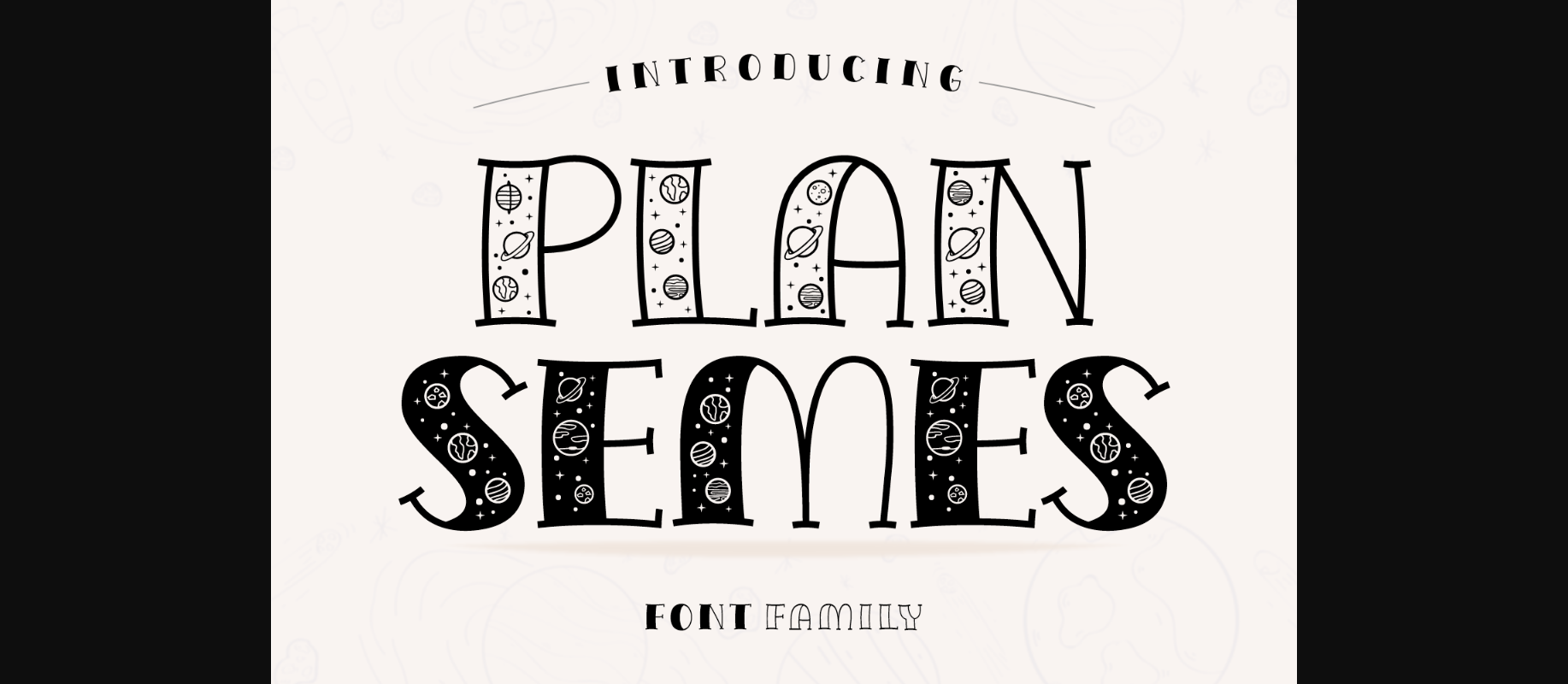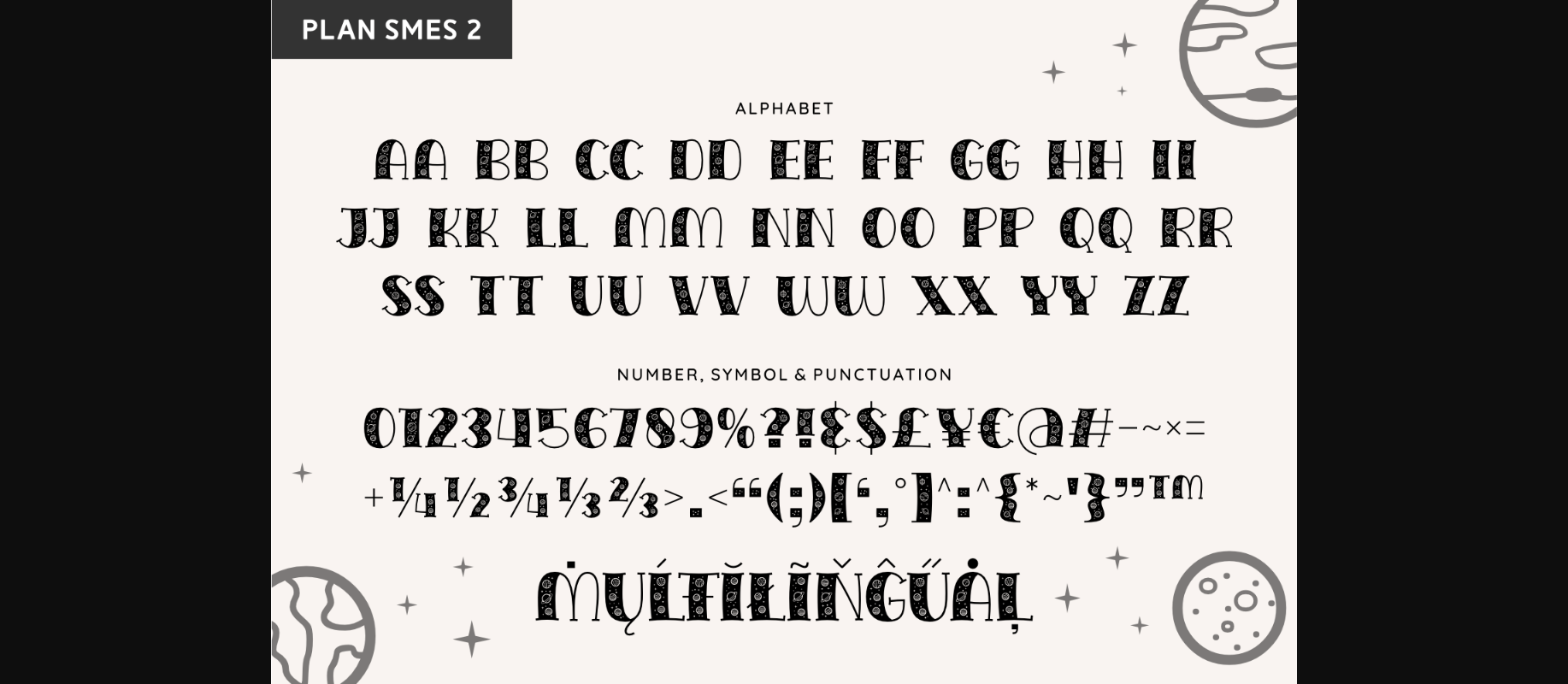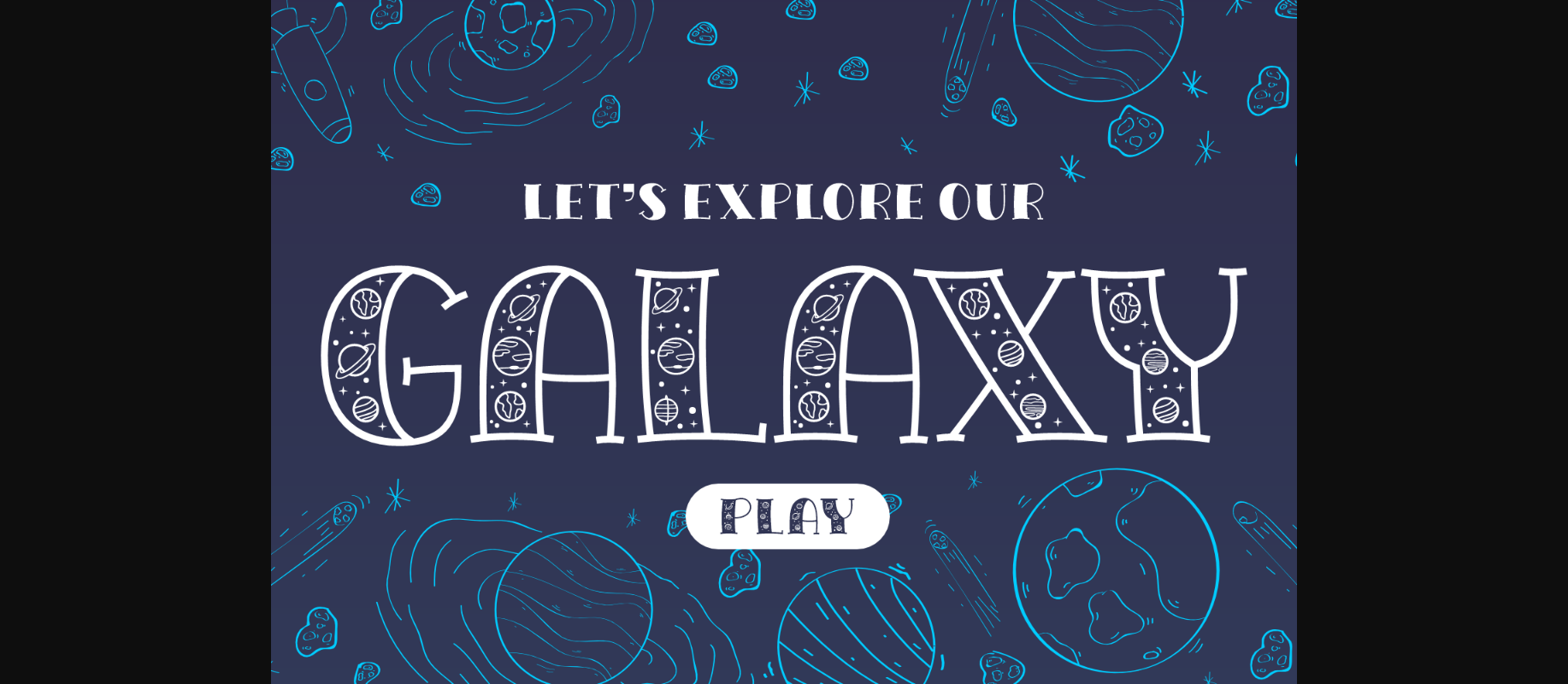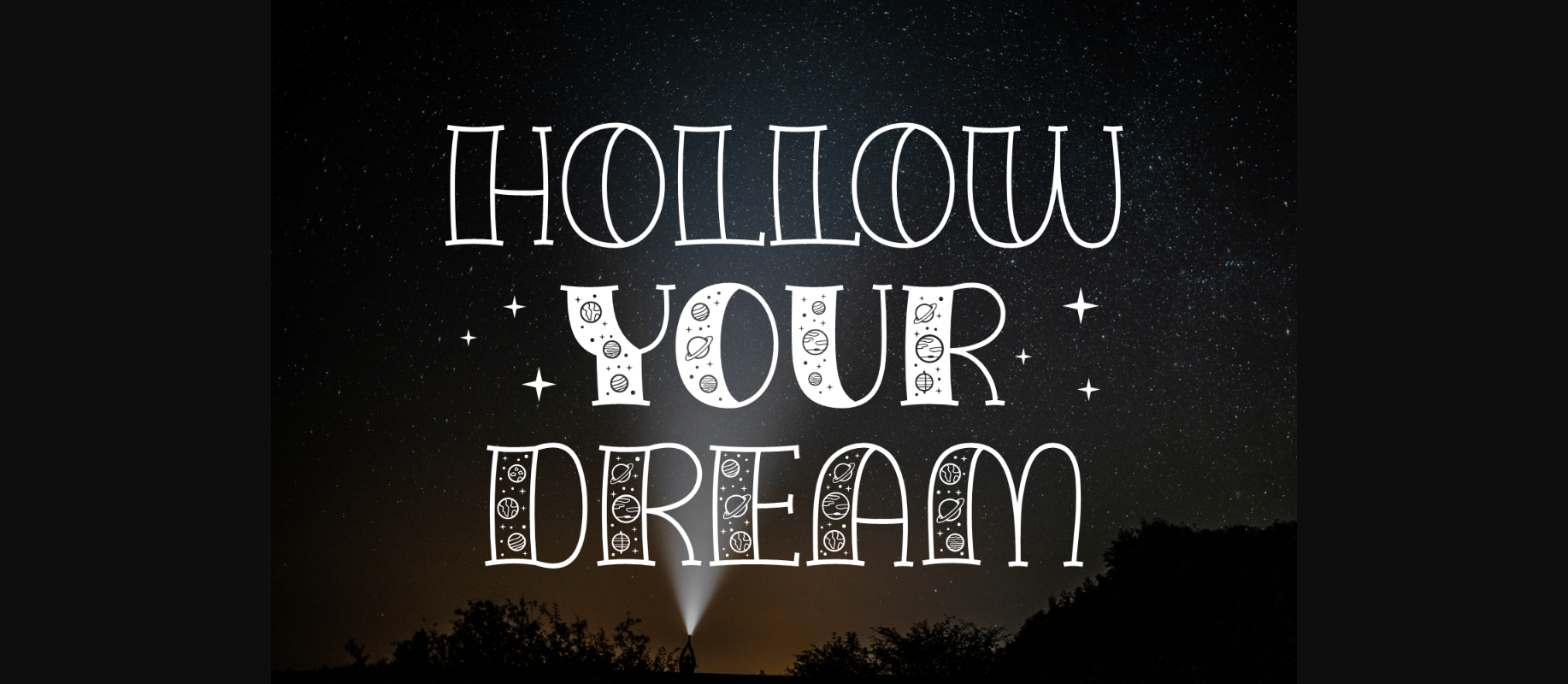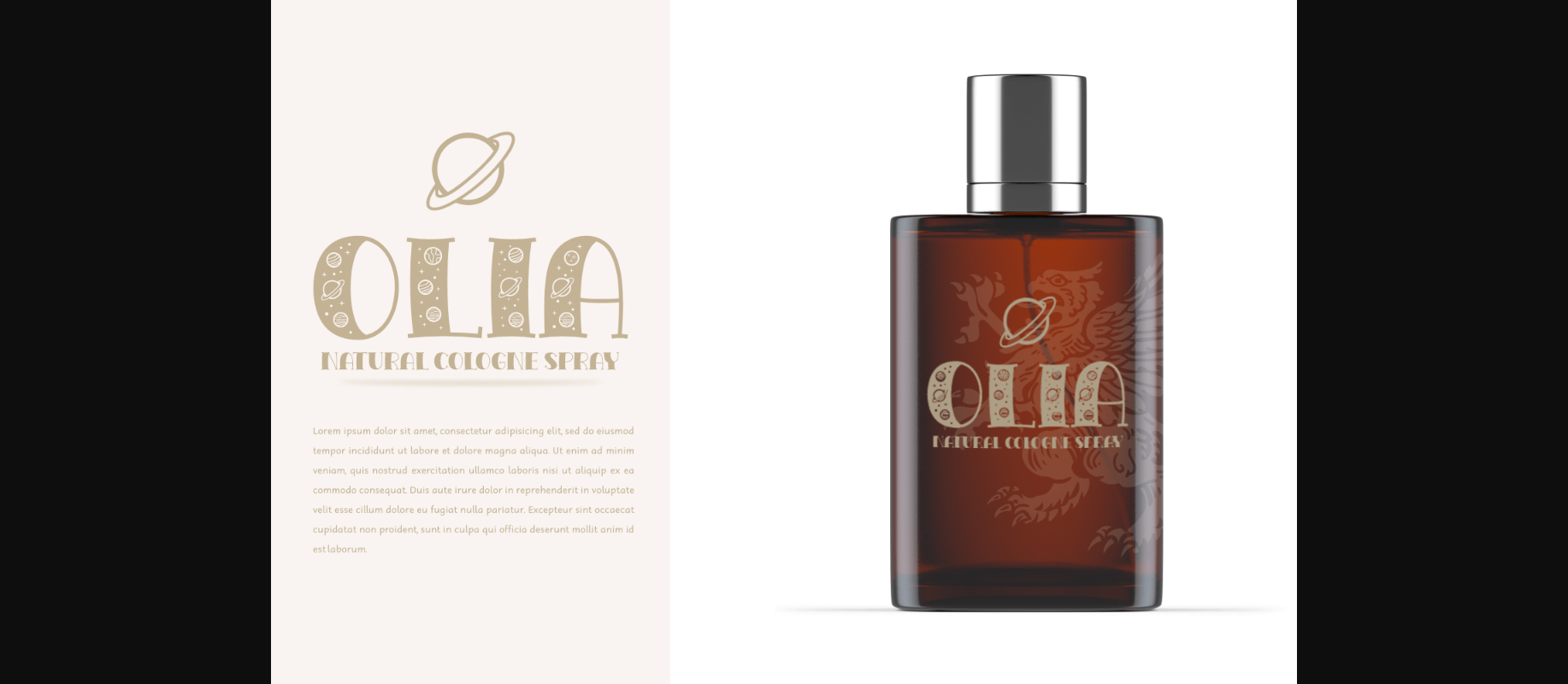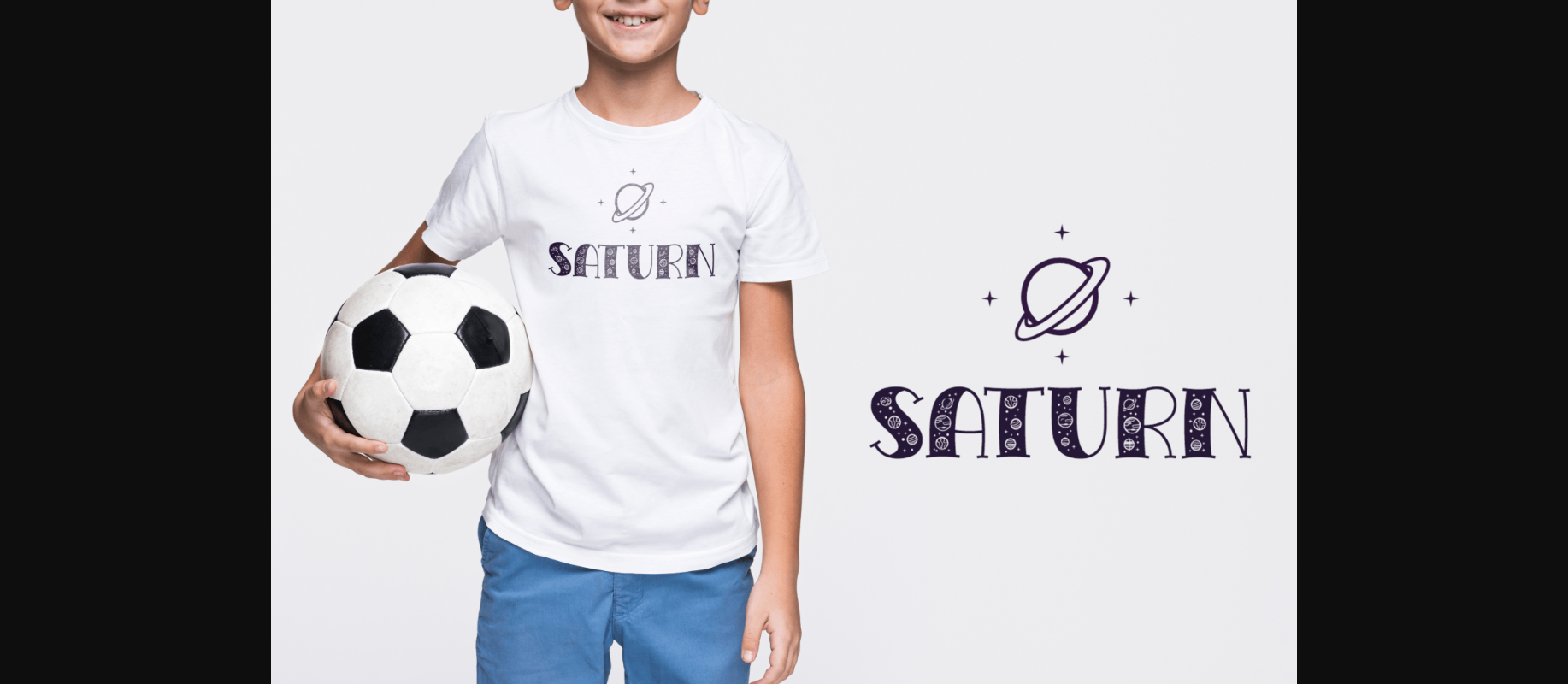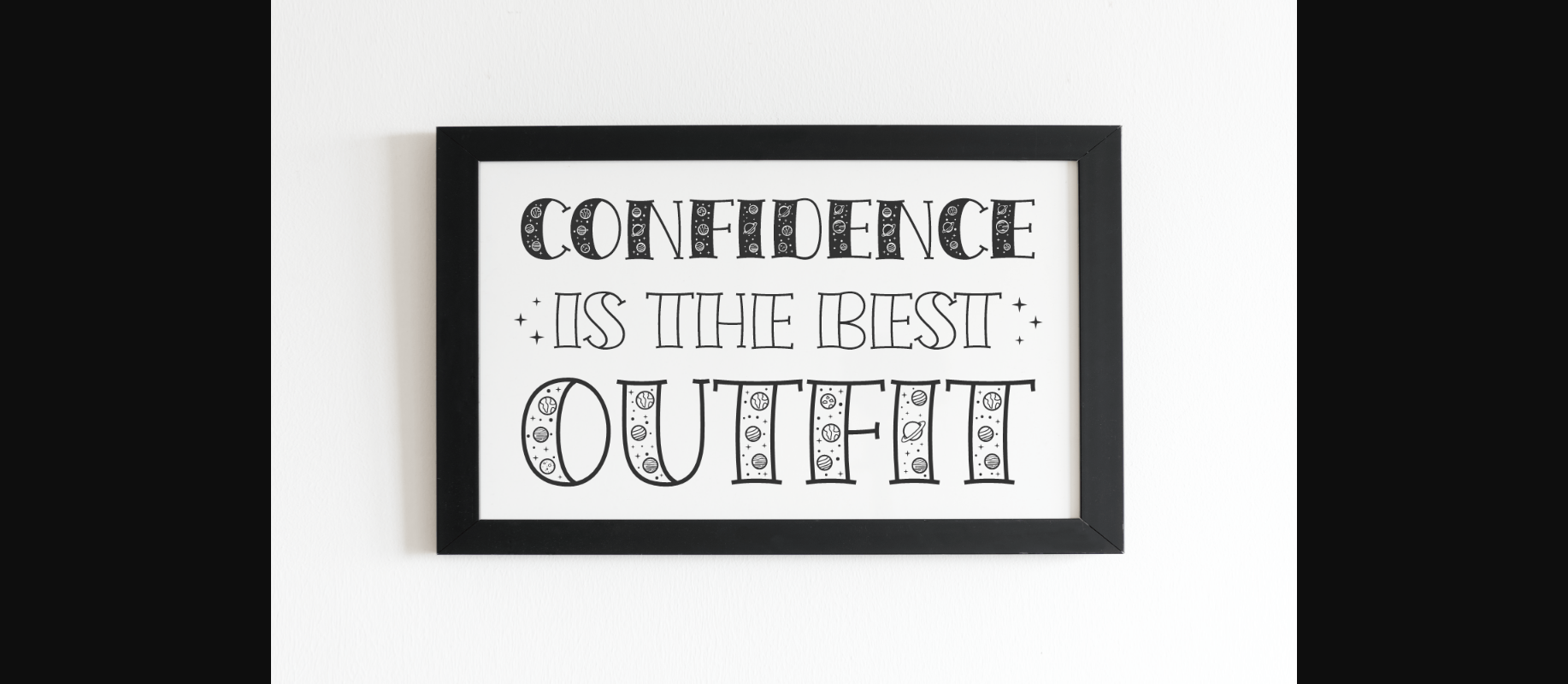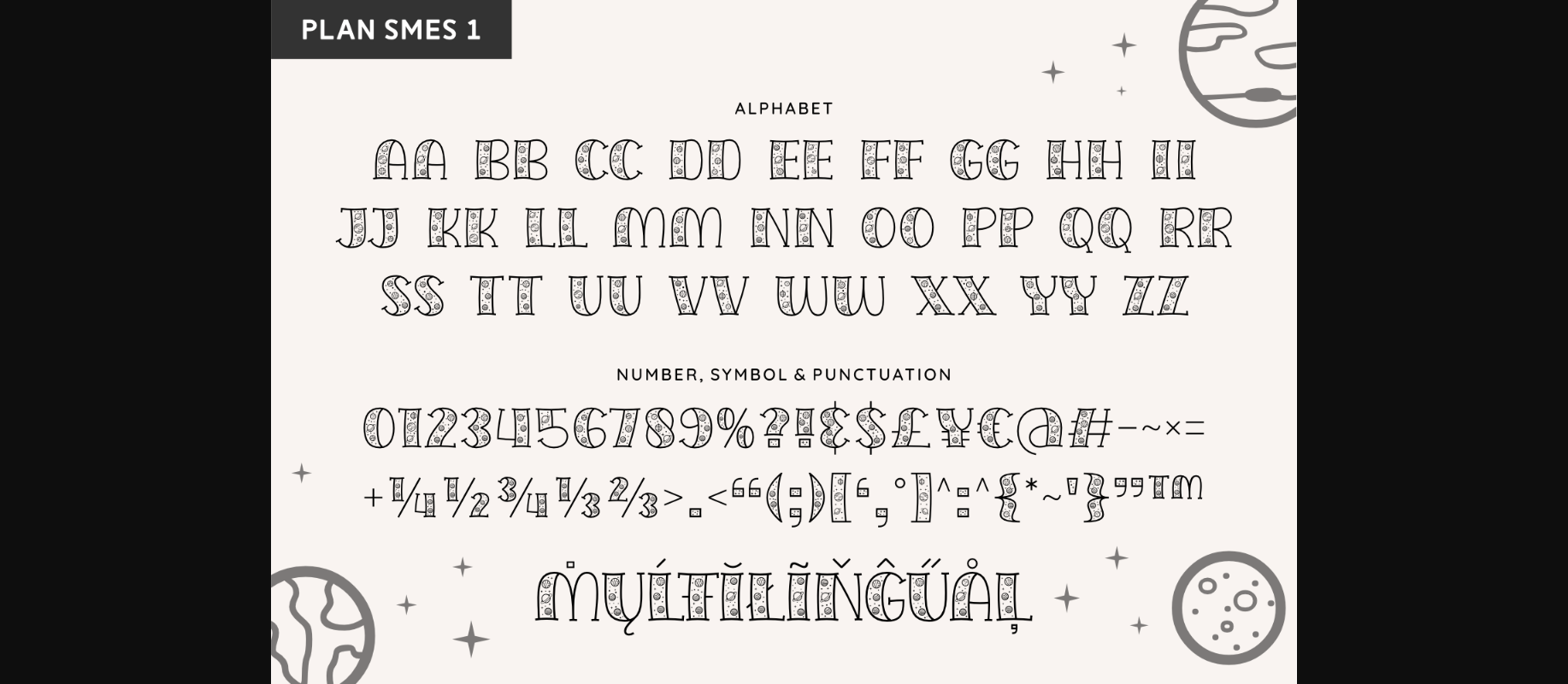
Plan Smes Font
About Plan Smes Font
Plan Smes is an adorable decorative font. It embodies playfulness and authenticity and is the perfect choice for any children’s activity or school project. Add this chunky lettered font to your designs and notice how it makes them come alive!